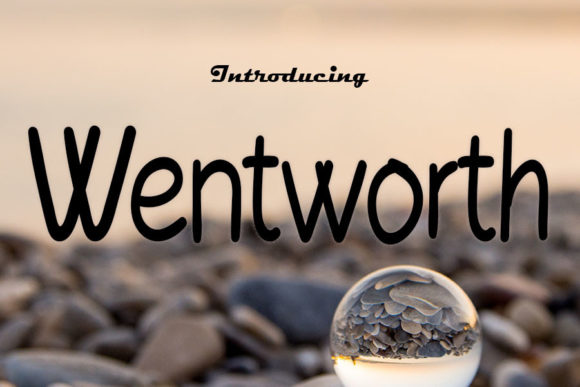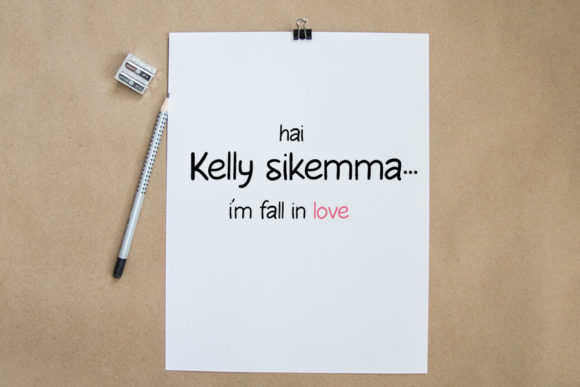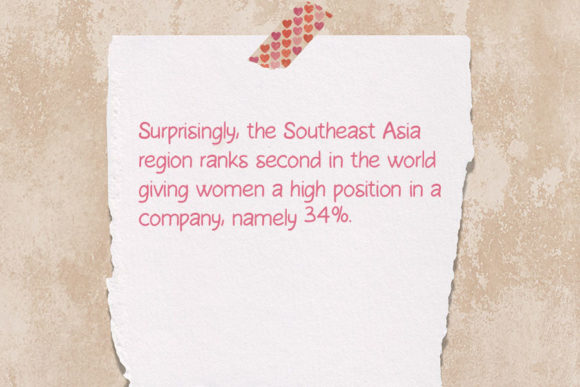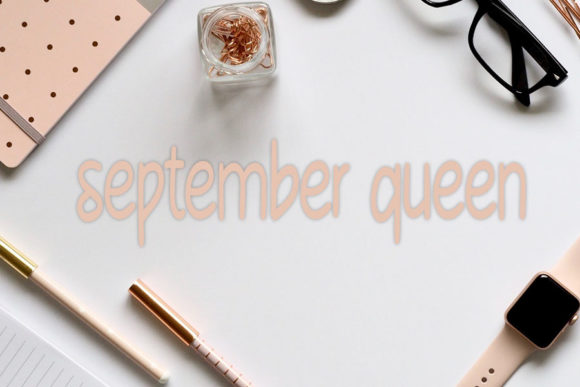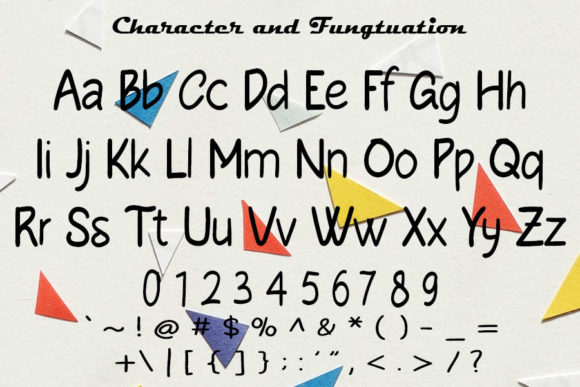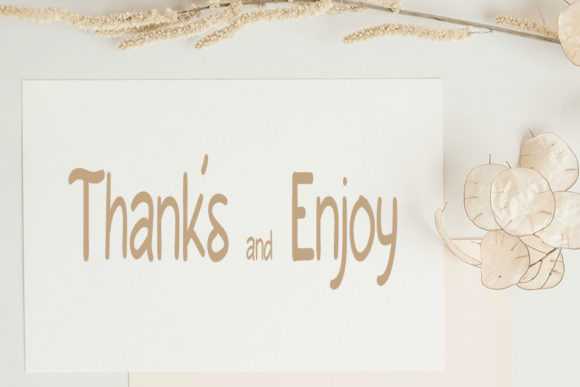
Whenworth Font
About Whenworth Font
Wentworth is an elegant and dainty handwritten font that features sweet and delicate swashes. This original look will appeal to a wide range of crafty ideas, from letterheads and titles, to stationery.